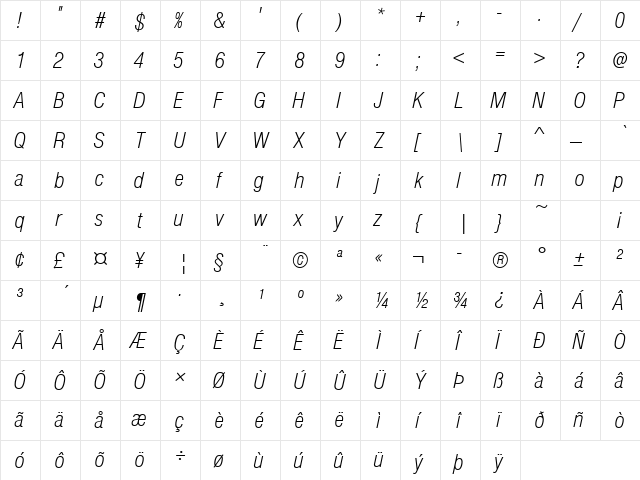
Nimbus Sans Becker PLigCon Italic
Design Context for Nimbus Sans Becker PLigCon Typeface
Nimbus Sans Becker PLigCon offers clean, dependable letterforms without strong stylistic allegiance, making it a practical choice for designers who need flexibility. The dynamic lean of this cut emphasises speed and emphasis in any layout.
Pro Tip: Use Nimbus Sans Becker PLigCon for emphasis, pull quotes, and subheadings where its slanted energy can add rhythm to the layout.